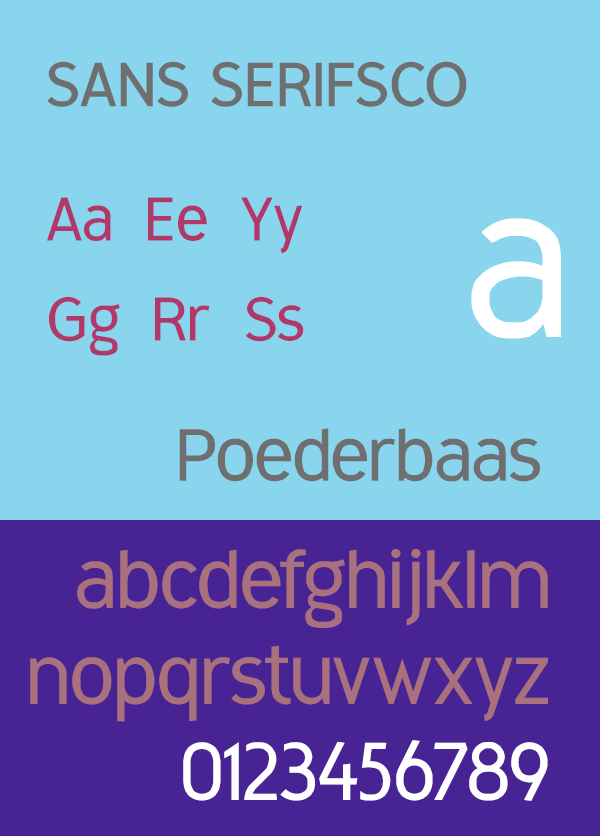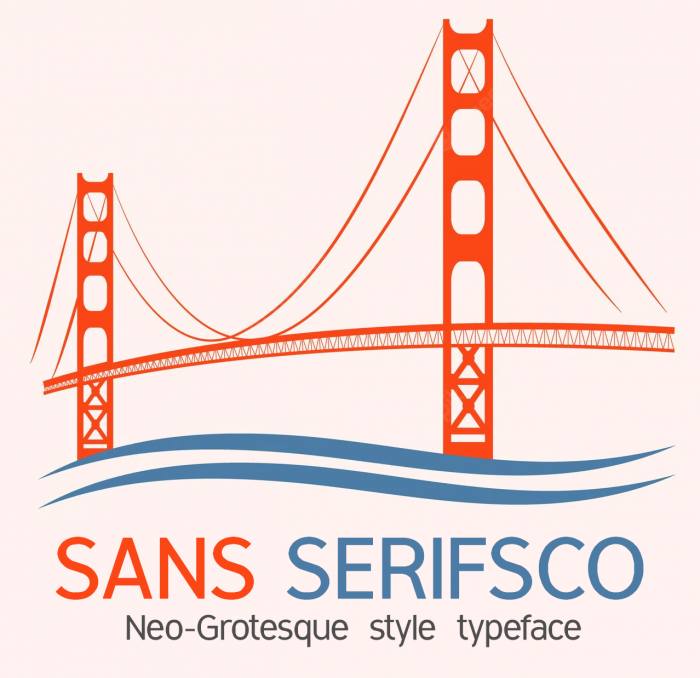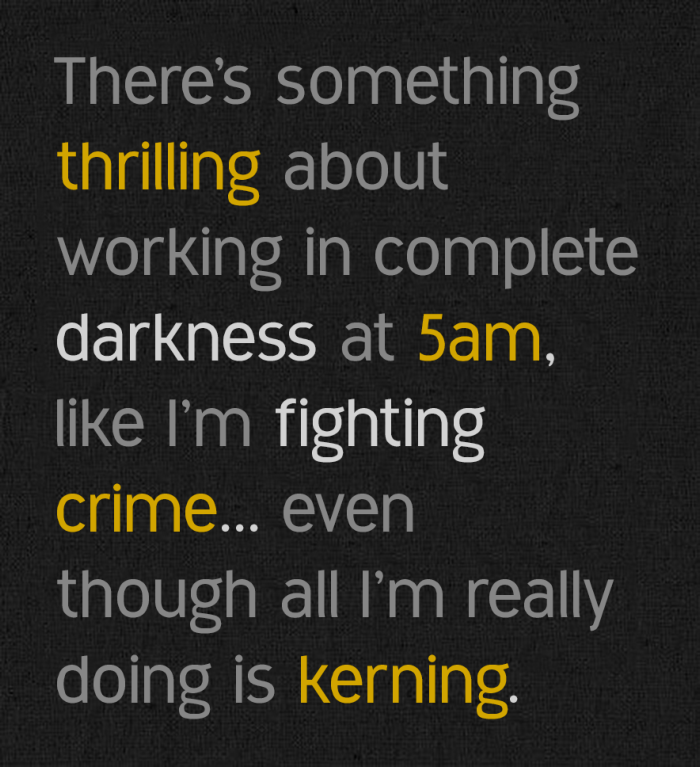
• SANS SERIFSCO — Humanist / Neo-Grotesque Sans-Serif
A contemporary neo-grotesque sans-serif design with regular weight.
I tried to add subtle diverse and nuanced visual elegance while still remaining minimalistic. Most significant feature is the subtle stroke modulations, distinguishing this from a more geometric style.
Designed to be versatile and suitable for a wide range of different purposes and optimized for legibility in small point size body copy.
The font was constructed on a large grid using linear interpolation (also known as faux-Bézier method). This allowed the most freedom for constructing more complex custom forms, curvatures and all the various stroke modulations.
The font has a total vertical height of 88 square grid units, this is including all optical compensations, ascends / descends and accents.
A wonderful sans serif, elegant and subtle. You are getting really good at these large grid curves!
reminds me of highway gothic for some reason....
Anyways, i love the subtle elegance that your font emits!
I'm with four. Those curves are 99,9% perfects. Congrats!
[@four] Yup, I think when using this method there is no limit to what can be achieved, the only limitation here would probably motivation. As this is such a labour intensive approach.
[@Better Handwriting] The similarities to "Highway Gothic" is purely coincidental. Both obviously Neo-Grotesques at their core, I think "FHWA" is more leaning towards a Geometric design than mine, whereas "Sans Serifsco" on the other hand has a prominent contrast and calligraphic influence in each letterform, thus diving deeper into the Humanist nature of a Sans-Serif style. The font is a straight out the box and 100% purely personal approach to the Gothic Grotesque style, that in reality wasn't based upon any typeface in particular at all.
Some of the notable differences are it's more calligraphy infuenced details, like for example those open counters, the tylish variation of terminal/spur and stroke styles. The clearly higher contrast in comparison. And last but not least the distinguishing double storey lowercase “a” and “g" forms. Taken together this really sets "Sans Serifsco" apart from the majority of Grotesques and Geometric sans serifs.
But yeah, I can understand where you're coming from with your comparison.
[@Elmoyenique]  — „Those curves are 99,9% perfects”   ?
I'd say that at that time they were at a 90% perfection for my personal opinion. ?
I have made major changes throughout the characterset today. Improving many curves, transitions and stroke modulations even further a notch. ? Lifting it's perfection score to about 95% right now. ? (ehehe) ?
Major changes throughout the entire characterset were made today. Major changes throughout the entire character-set were made today.
A couple of extra characters and symbols were included, but foremost, perfecting many of it's curves, transitions and stroke modulations even further a notch. Also underlying forms and base-geometry been more carefully justified and adjusted as such. many minute other random (mostly) optimizing modifications have been made to areas such as optical compensations, character responsiveness and behaviour, as well as a tad more relaxed letter-spacing. I've also started added kerning to the font (partially complete, with 3581 stored kern pairs so far).
We can all trust Sed4 to break the limitations of the FontStructor
Bulgaria uses the lowercase u shape for the lowercase и
Those curves look beautiful and complicated at the same time, seriously, how in the world did you make that?
@Kiên Trung (trungdangTrung Kiên): This is a large grid faux Bezier (linear interpolation) design. See my published toolset for examples
Your font is great! How do you make this? (Behind-The-Scenes?)